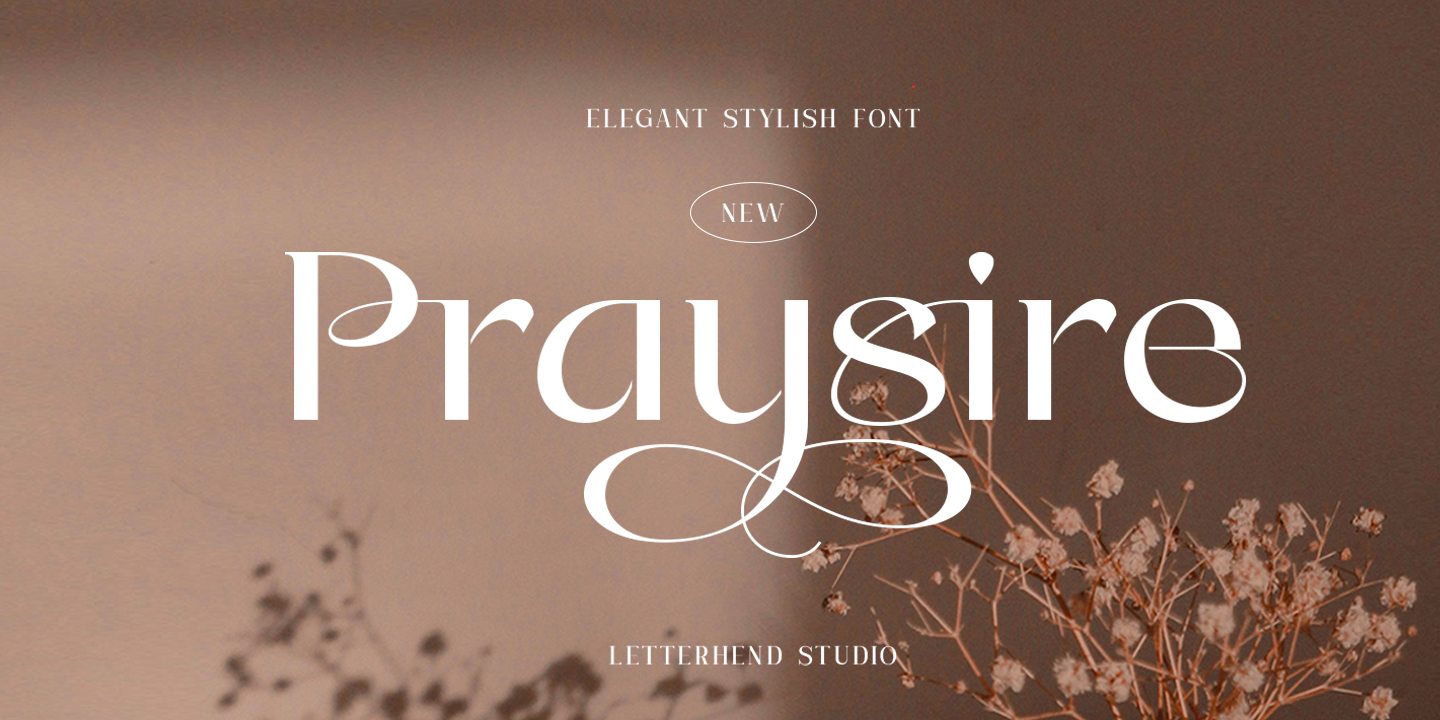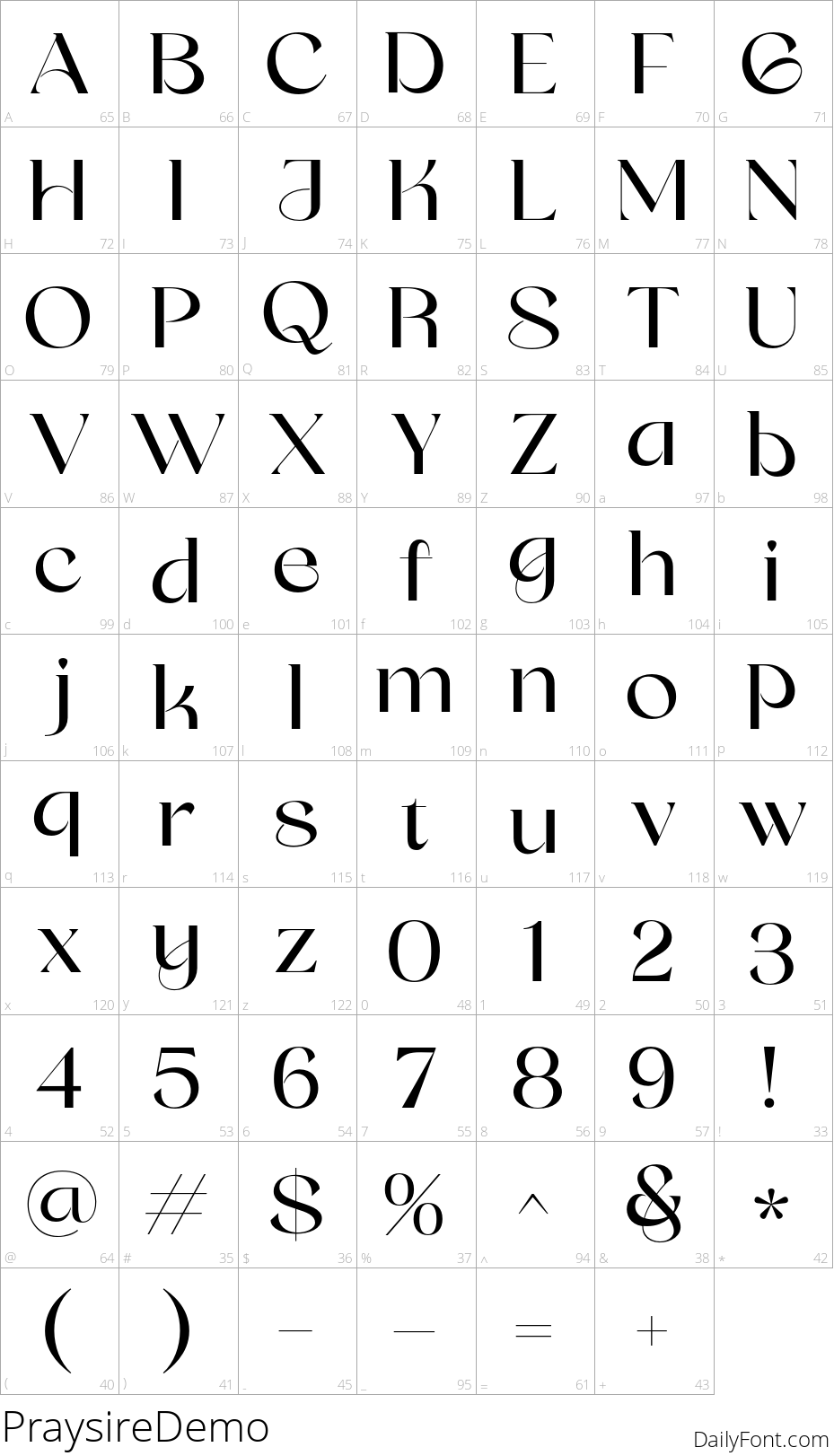
Praysire
Praysire is a sophisticated sans serif font that elegantly fuses contemporary design with intricate swashes, creating a versatile typeface suitable for various applications. This unique font offers a wide array of alternates, allowing users to customize and enhance their projects effortlessly. Whether you're crafting a standout headline, tagging your product, or designing an elegant invitation, Praysire's distinctive letterforms will elevate your work and capture attention.
The versatility of Praysire makes it Ideal for a myriad of uses, from invitations and labels to logos, magazines, books, greeting and wedding cards, packaging, and fashion branding. Additionally, this engaging font is equipped with uppercase and lowercase letters, numbers, punctuation, and multilingual alternates and ligatures, ensuring it meets the needs of diverse audiences. With PUA encoding, Praysire's swashes and design options are easily accessible, making it a must-have for designers who aim to create visually stunning and memorable pieces.